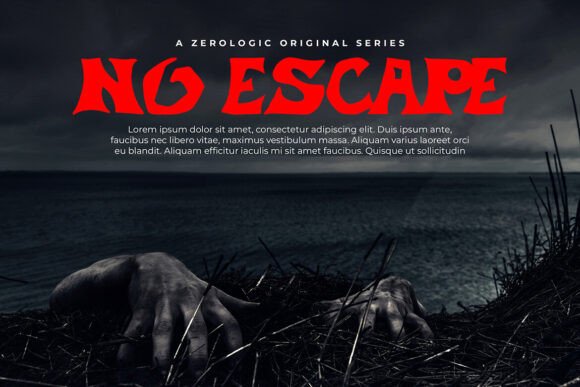
Midnight Batcave Font: Unleash the Spooky Charm of Halloween
As the witching hour approaches, and the spooky season takes center stage, designers and creatives are on the lookout for the perfect font to add a touch of eerie charm to their Halloween designs. Look no further than the Midnight Batcave Font, a spooky, Halloween-inspired font that is sure to cast a spell on your audience.
What is Midnight Batcave Font?
Midnight Batcave is a unique and captivating font that embodies the mysterious and bat-filled vibe of the Halloween season. With its sharp edges and eerie charm, this font is perfect for adding a touch of spookiness to your designs. Whether you’re creating invitations, posters, or social media graphics, Midnight Batcave Font is sure to make your designs stand out.
Key Features of Midnight Batcave Font
- Sharp Edges: The Midnight Batcave Font features sharp, jagged edges that give it a spooky and eerie feel.
- Eerie Charm: This font has a certain charm that is sure to captivate your audience and leave a lasting impression.
- Bat-filled Vibe: The font’s design is inspired by the mysterious and bat-filled world of Halloween, making it perfect for the spooky season.
- Halloween-inspired: Midnight Batcave Font is specifically designed for Halloween, making it a great addition to your design arsenal.
Uses of Midnight Batcave Font
The Midnight Batcave Font is a versatile font that can be used in a variety of design projects, including:
- Halloween Invitations: Create spooky and eye-catching invitations for Halloween parties and events.
- Posters and Flyers: Design attention-grabbing posters and flyers for Halloween-themed events and promotions.
- Social Media Graphics: Add a touch of spookiness to your social media graphics and make them stand out.
- Logos and Branding: Use Midnight Batcave Font to create a unique and memorable logo or branding for your Halloween-themed business or event.
Benefits of Using Midnight Batcave Font
- Unique and Eye-catching: The Midnight Batcave Font is a one-of-a-kind font that is sure to grab attention and make your designs stand out.
- Perfect for Halloween: This font is specifically designed for Halloween, making it a great addition to your design arsenal for the spooky season.
- Customizable: You can customize the font to fit your design needs, making it perfect for a variety of projects.
Tips for Using Midnight Batcave Font
Here are some tips for using Midnight Batcave Font in your designs:
- Use it Sparingly: Use the font sparingly to make it more effective. Too much of a good thing can be overwhelming.
- Pair it with Other Fonts: Pair Midnight Batcave Font with other fonts to create a unique and eye-catching design.
- Experiment with Colors: Experiment with different colors to find the perfect combination that complements the font.
- Make it Bold: Make the font bold and eye-catching by using it in large sizes or with bold colors.
The Midnight Batcave Font is a spooky, Halloween-inspired font that is sure to add a touch of eerie charm to your designs. With its sharp edges and bat-filled vibe, this font is perfect for Halloween-themed projects. Whether you’re a designer, artist, or simply a Halloween enthusiast, Midnight Batcave Font is a great addition to your design arsenal.